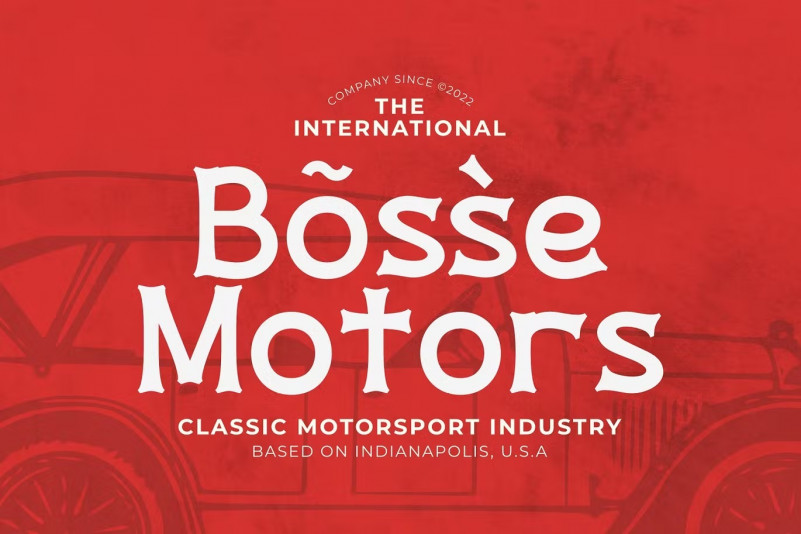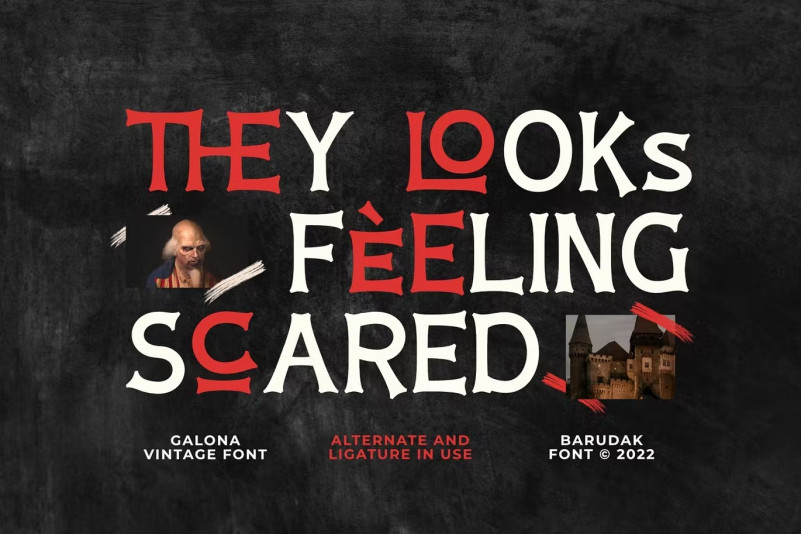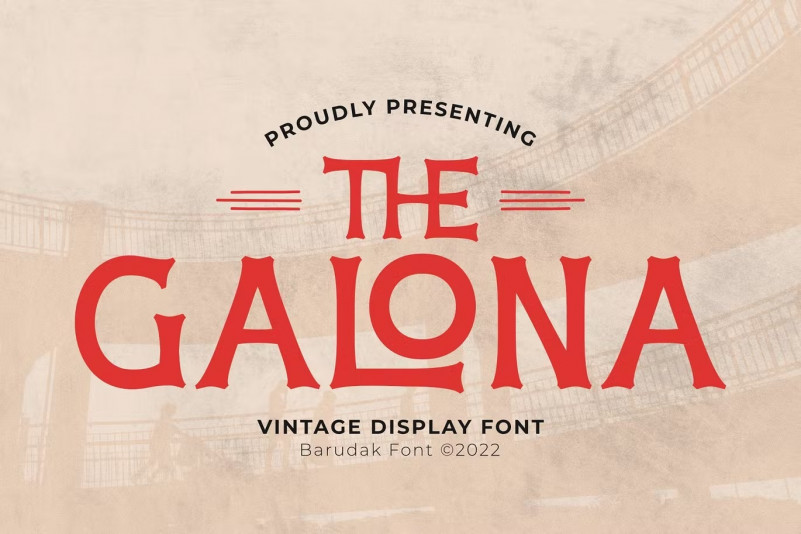
Galona Font
Galona – Serif Display Font. You can creatively edit and use this illustration set on merchandise, logo, sticker, patches, badge, and many more.